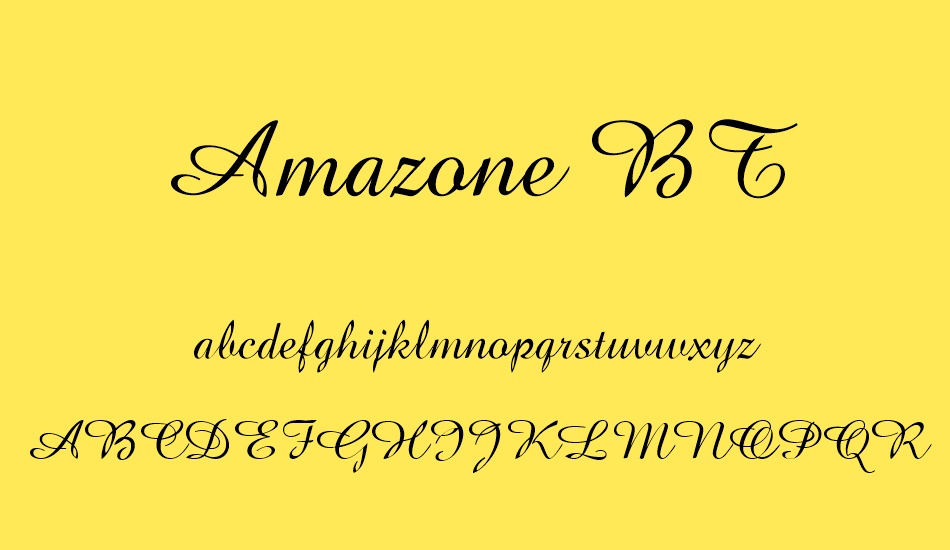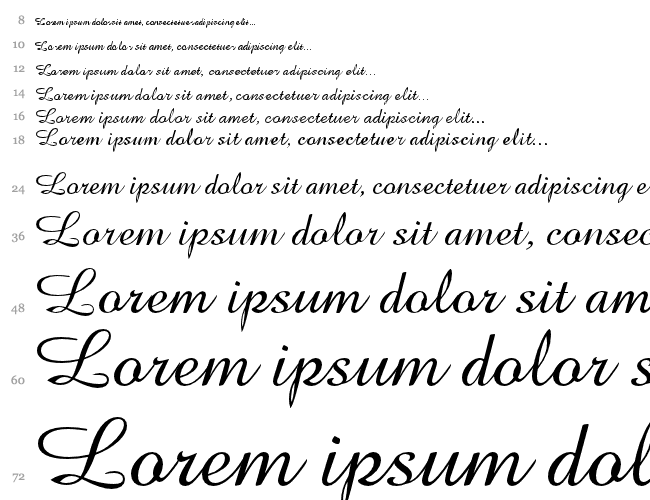
Amazone Bt Font
Amazone Bt Font - Votes, rated based on results identification. Web font amazone bt regular belongs to the categories calligraphy, decorative, lettering, script, valentine.
Web font amazone bt regular belongs to the categories calligraphy, decorative, lettering, script, valentine.